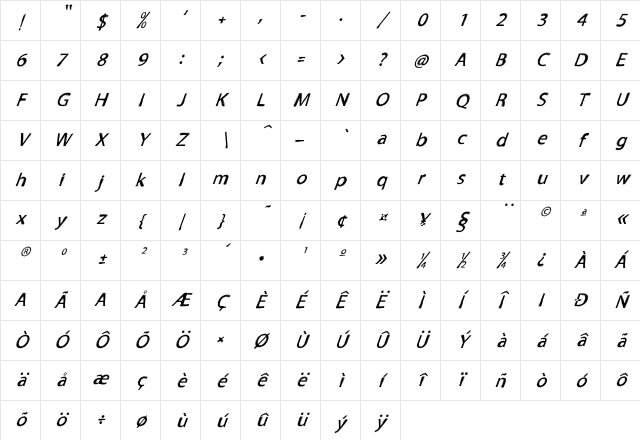
TNEWPRO NormalItalic Free Font
TNEWPRO NormalItalic
Design Context for TNEWPRO
TNEWPRO is a composed and adaptable typeface that performs quietly and consistently across a wide range of design contexts. The slanted form adds forward momentum and visual energy.